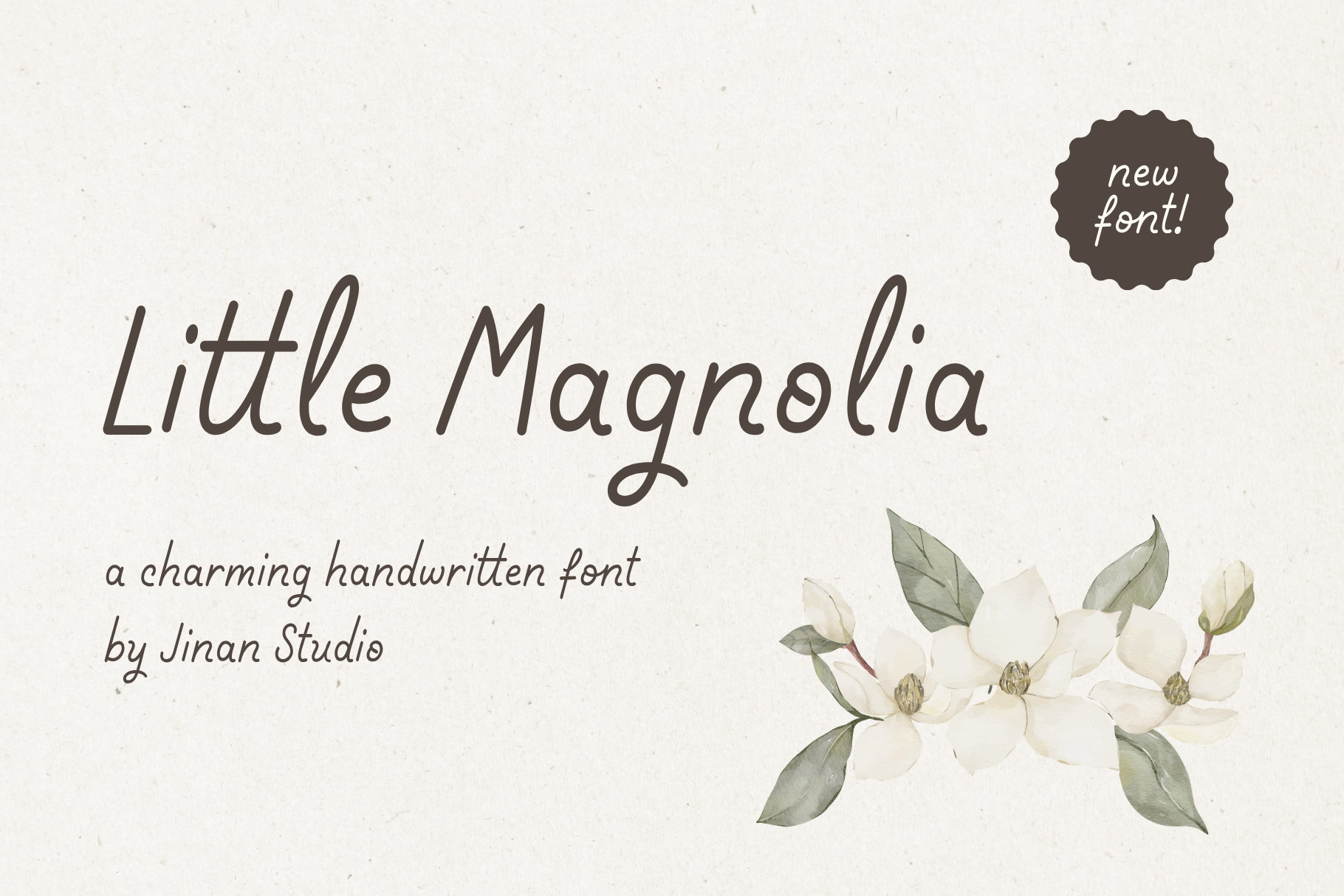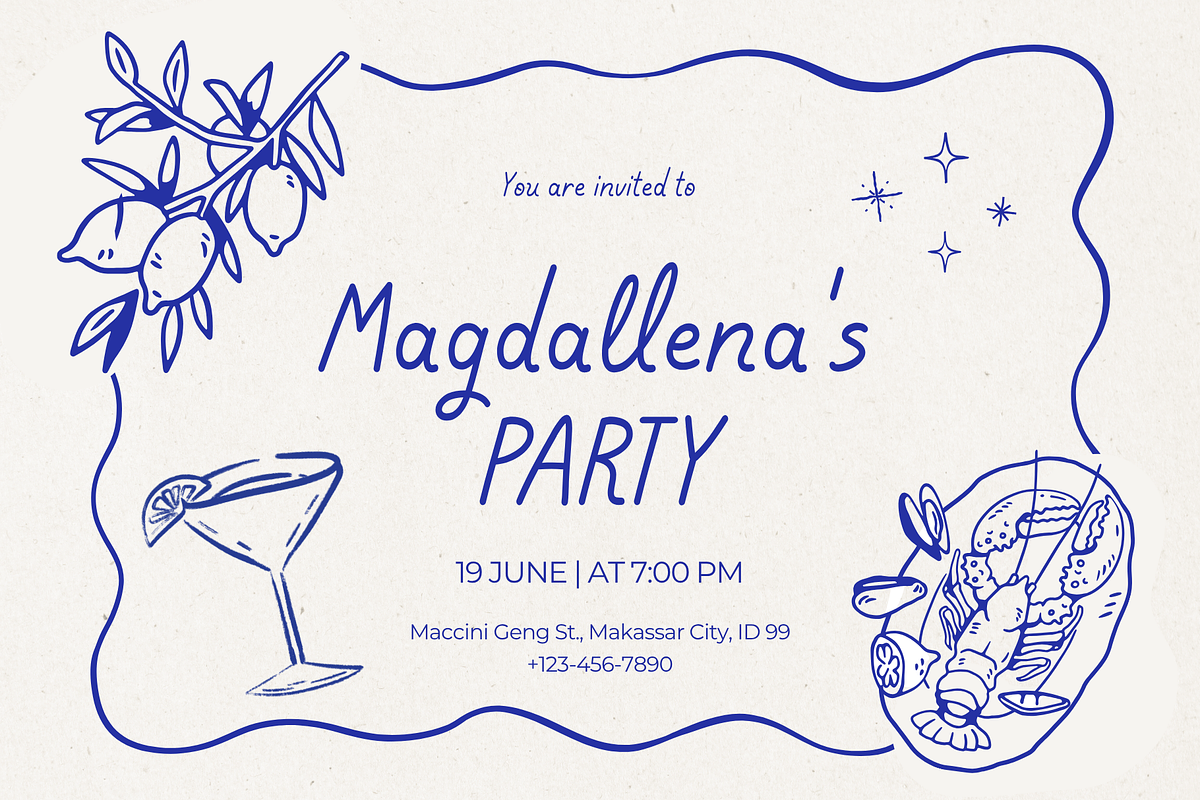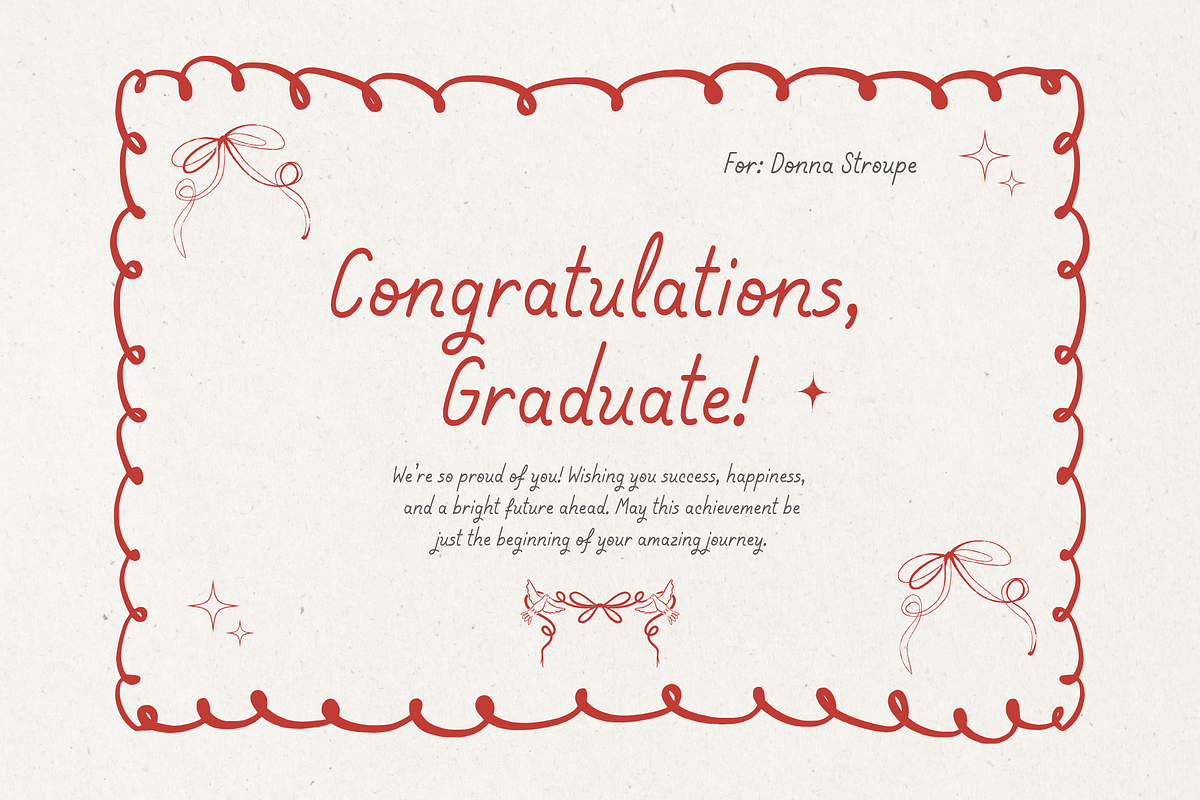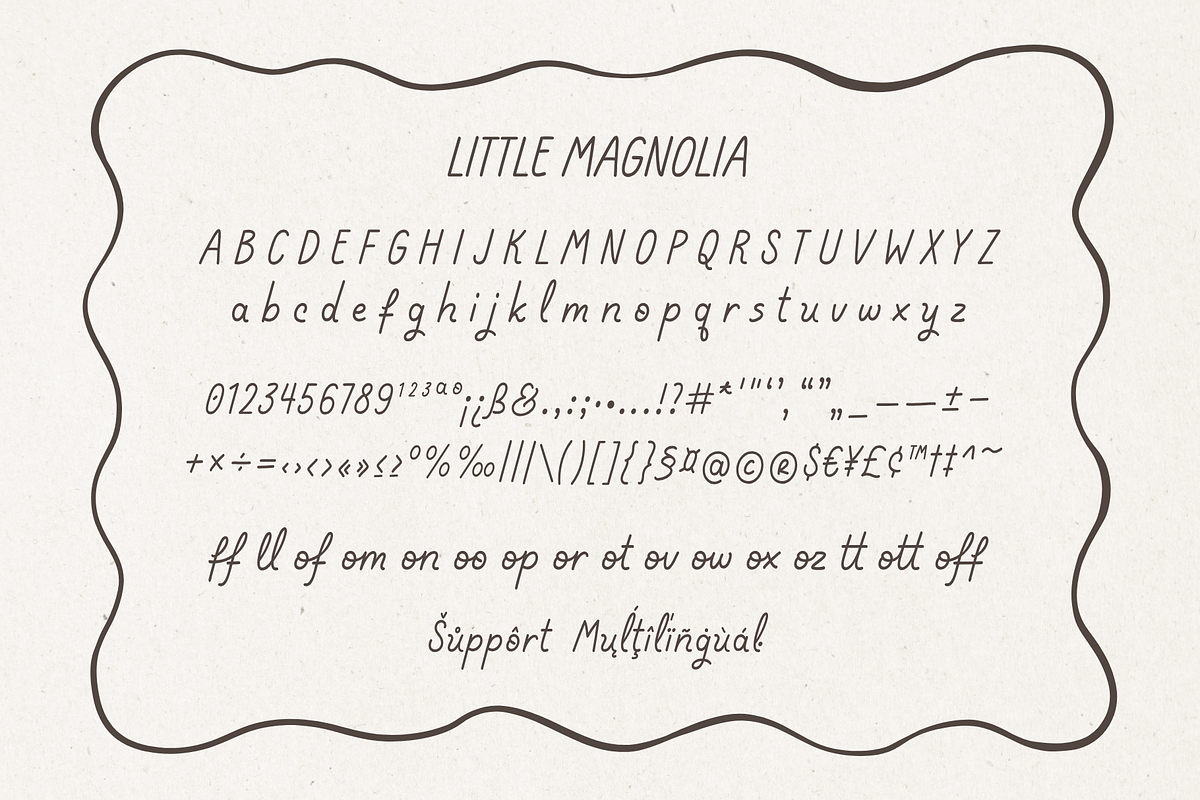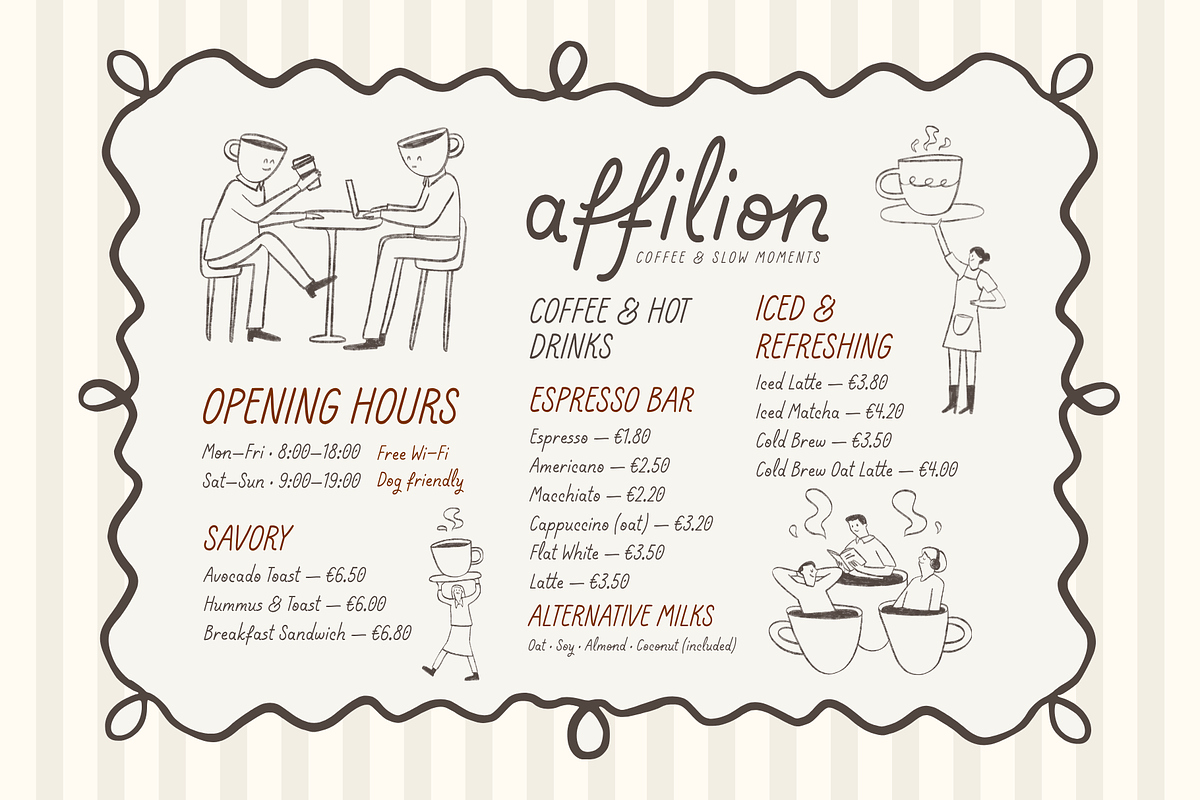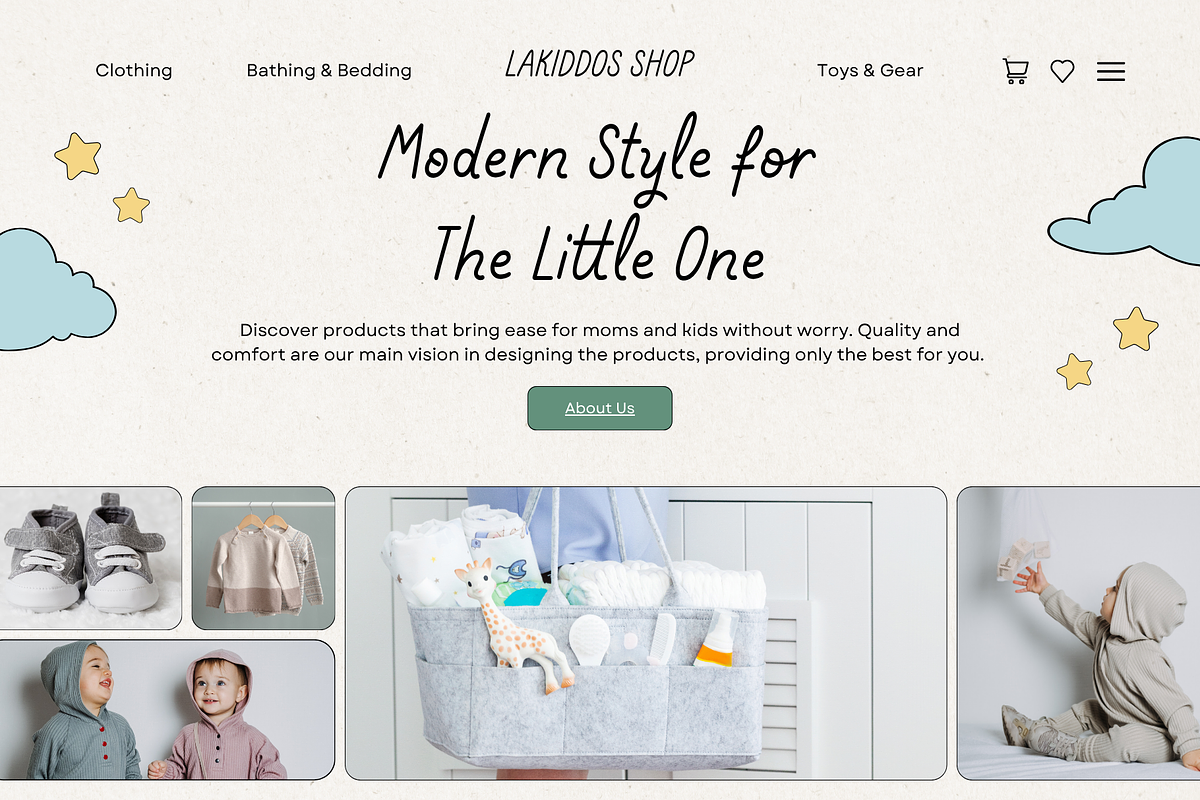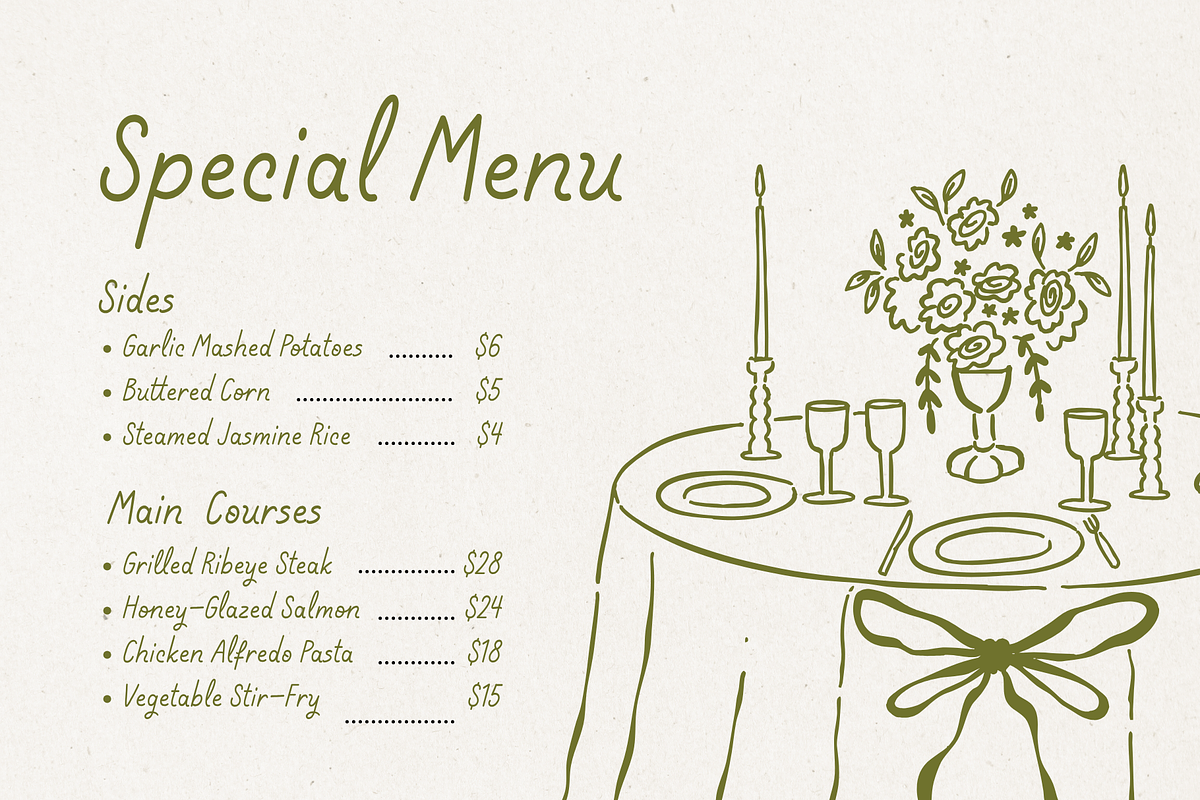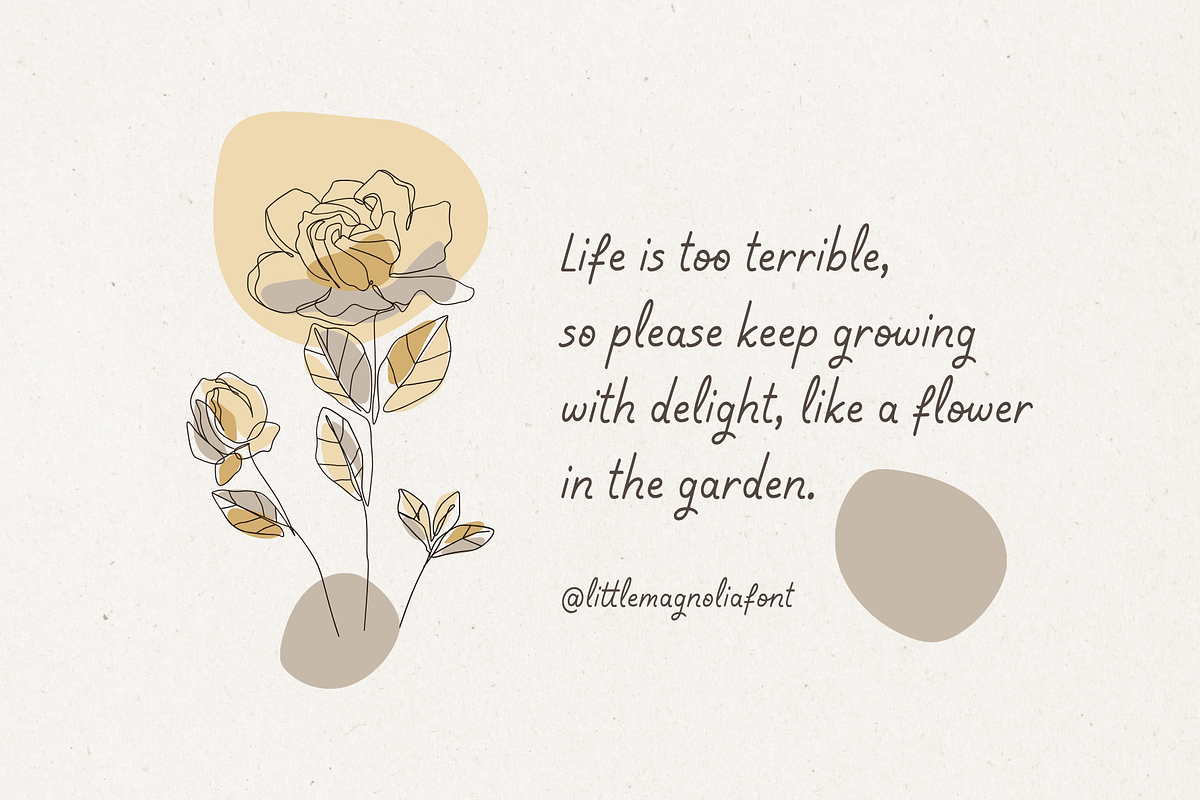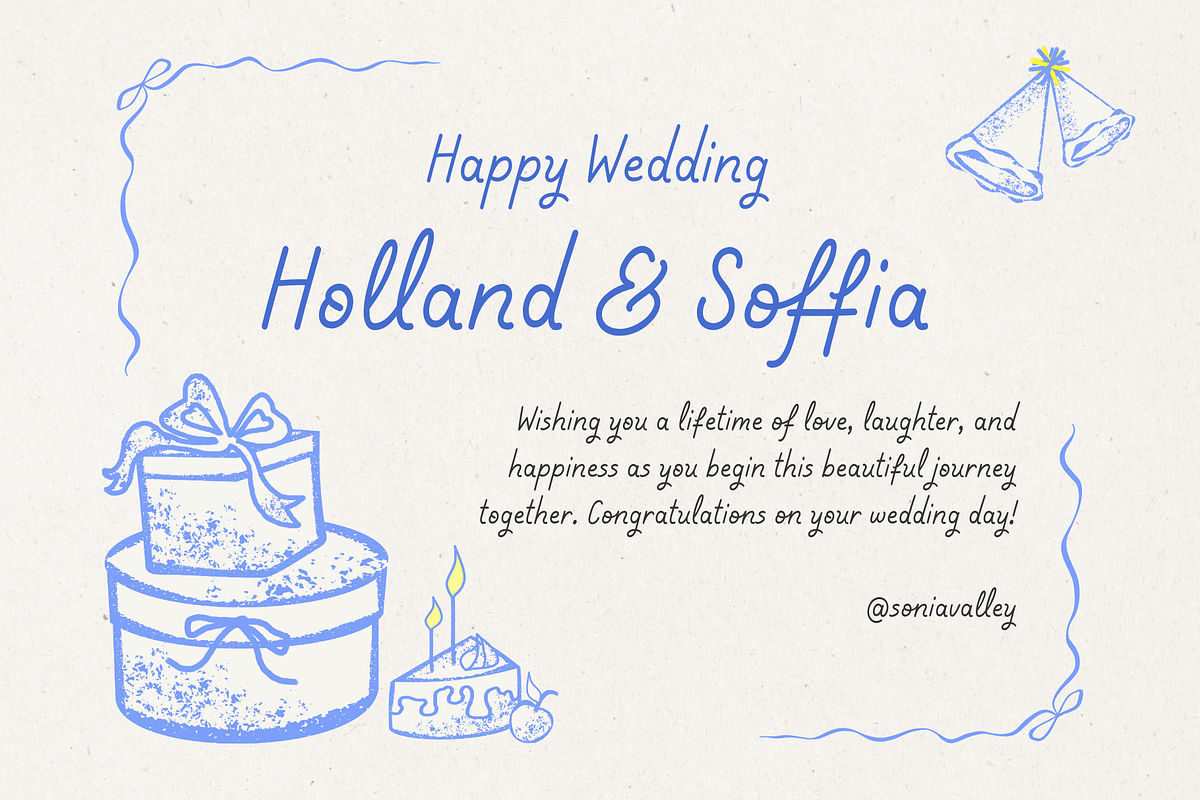
Little Magnolia - A Handwritten Font
Little Magnolia is a charming handwritten font with a natural, smooth, and elegant style. Designed to look like real handwriting, it adds a warm and personal touch to any creative project. Its clean and easy-to-read letterforms make it perfect for both professional and everyday designs.
Whether you're creating logos, branding, wedding invitations, greeting cards, product packaging, social media posts, or craft projects, Little Magnolia brings a beautiful handcrafted feel that stands out effortlessly.
Branding, logos, wedding invitations, greeting cards, packaging, social media, quotes, book covers, stickers, Cricut projects, DIY crafts, and more.
Add a soft, elegant, and authentic handwritten touch to your designs with Little Magnolia. It's a versatile font that works beautifully for both personal and commercial projects.